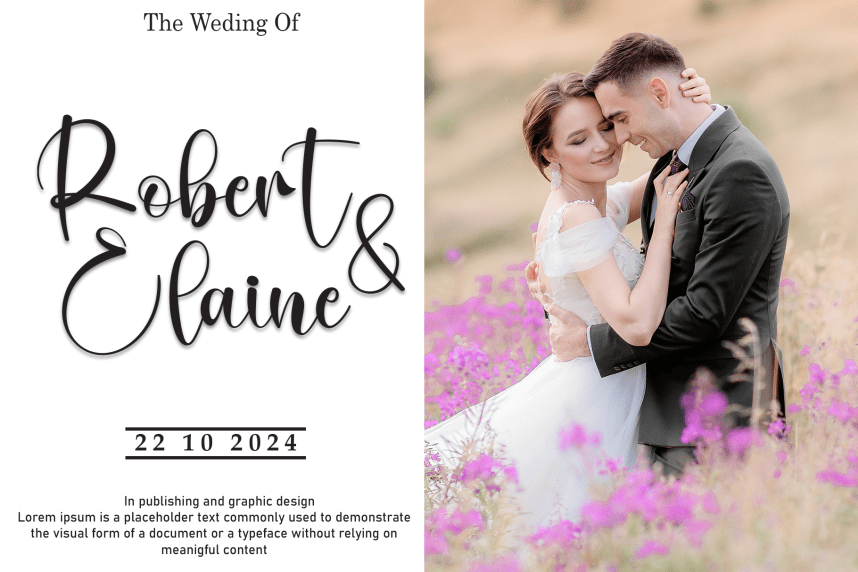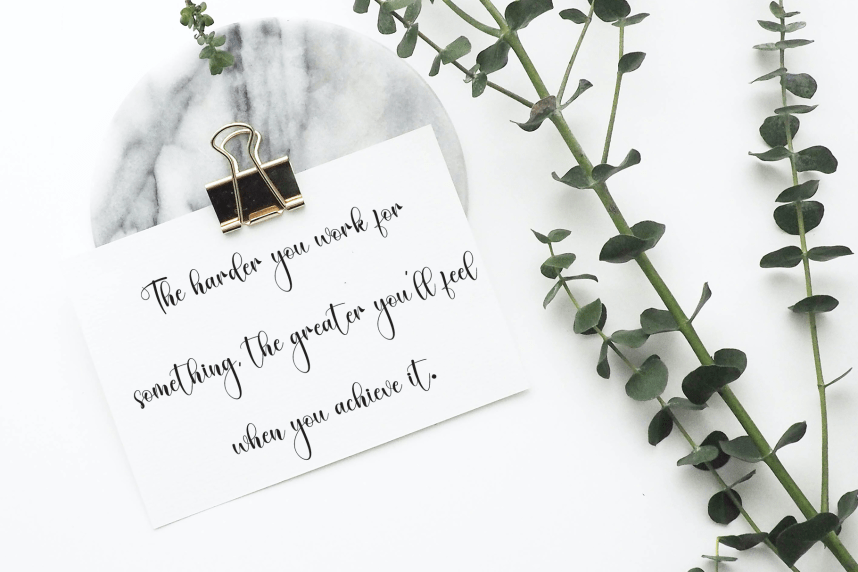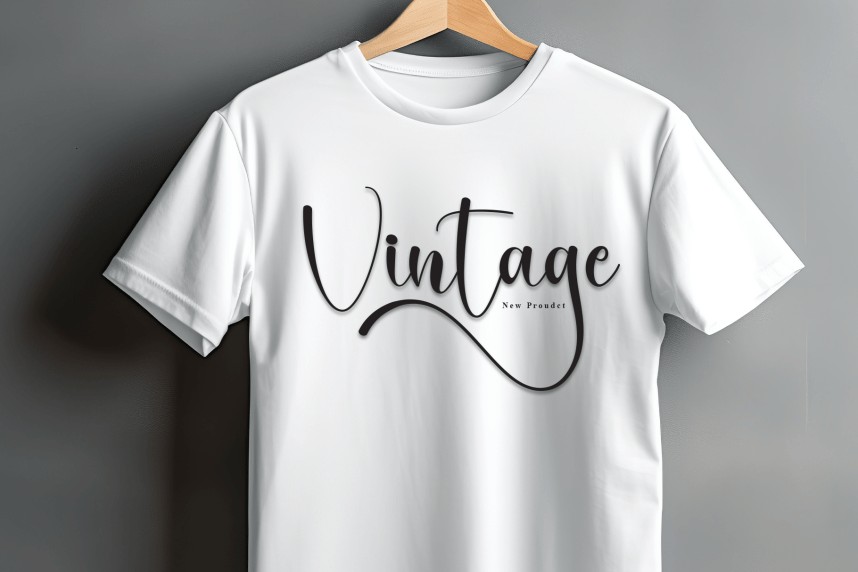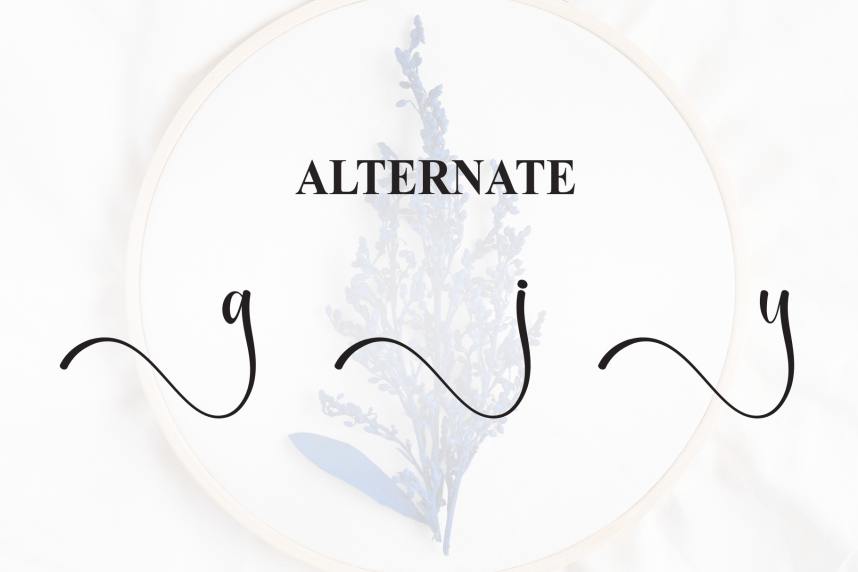
Embroidery – Elegant Handwritten Font
Embroidery – Elegant Handwritten Font, special creative products for you, our products will give you an extraordinary experience. the latest style letters are perfect for wall displays, wedding invitations, social media post logos, advertisements, product packaging, product designs, labels, photography, watermarks, invitations, stationery, and any project that requires taste handwriting.